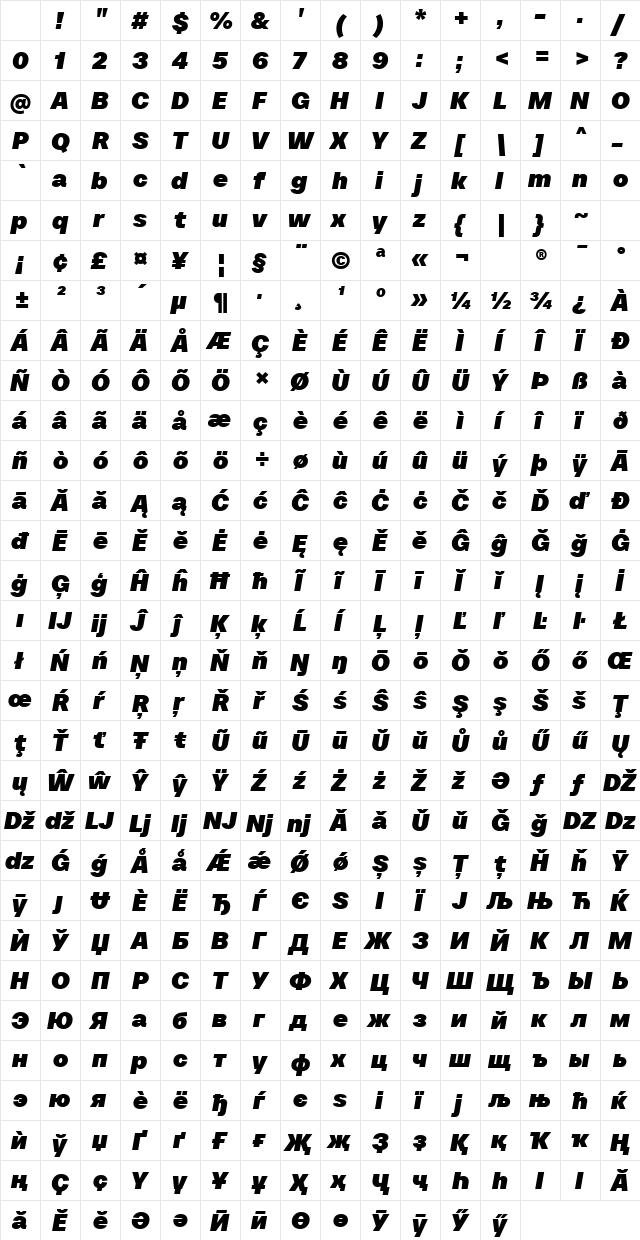
TT Neoris Trial Black Italic
Designer: Designed by Antonina Zhulkova, Marina Khodak, Toma Streltsova, Yulia Gonina, Nadyr Rakhimov, Anastasia Pogorelova, Lada Sobchenko. Technical designers Ivan Gladkikh, Yuriy Nako, Victor Rubenko, Anastasia Vrublevskaya.
Design Context for TT Neoris Trial
TT Neoris Trial is a composed and adaptable typeface that performs quietly and consistently across a wide range of design contexts. The slanted form adds forward momentum and visual energy.
Pro Tip: Use TT Neoris Trial for emphasis, pull quotes, and subheadings where its slanted energy can add rhythm to the layout.